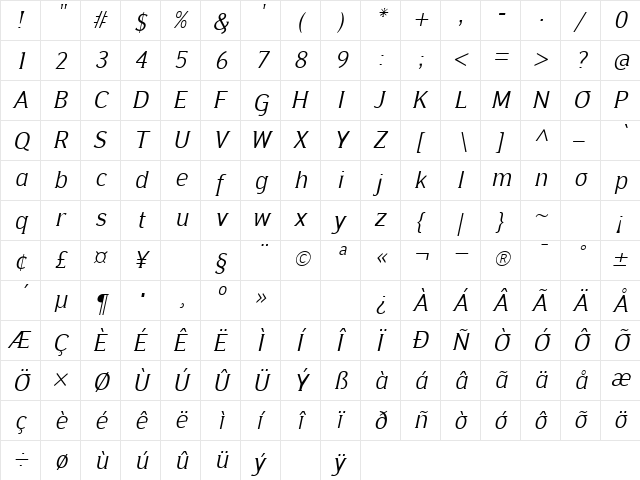
IdeologicaLight Italic Regular
Design Context for IdeologicaLight Italic Typeface
IdeologicaLight Italic is a composed and adaptable typeface that performs quietly and consistently across a wide range of design contexts. Its italic angle brings a sense of urgency and motion to the letterforms. The delicate stroke weight brings airiness and refinement to layouts.
Pro Tip: Use IdeologicaLight Italic for emphasis, pull quotes, and subheadings where its slanted energy can add rhythm to the layout.